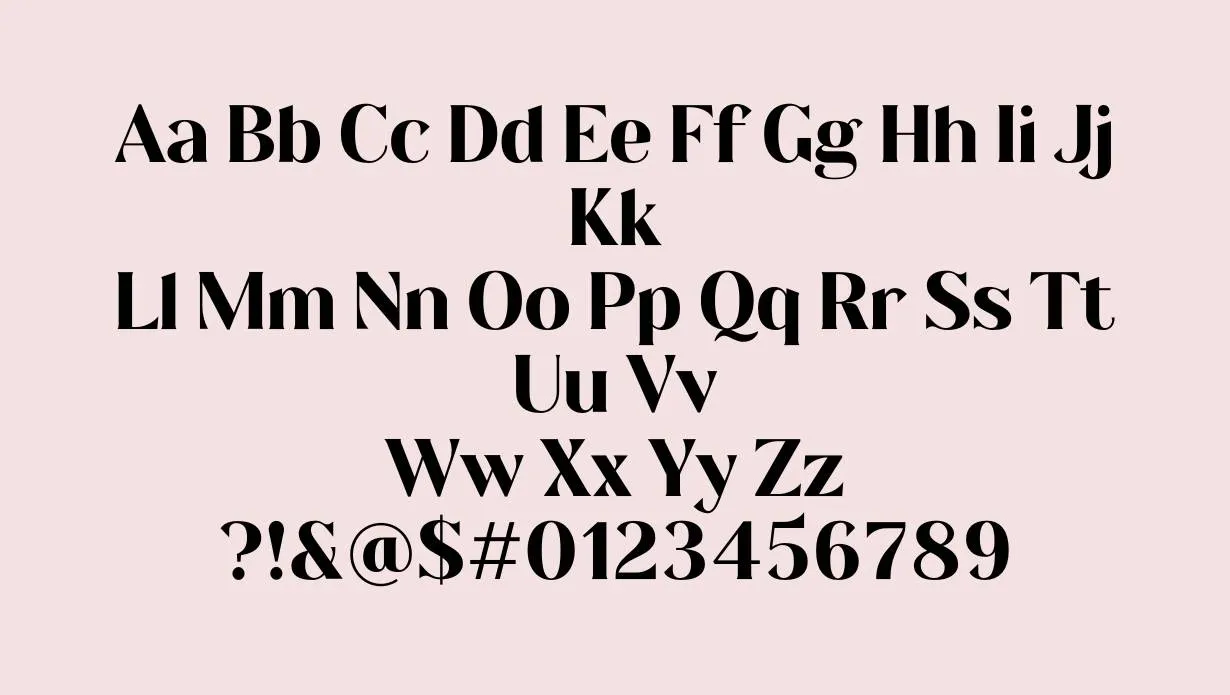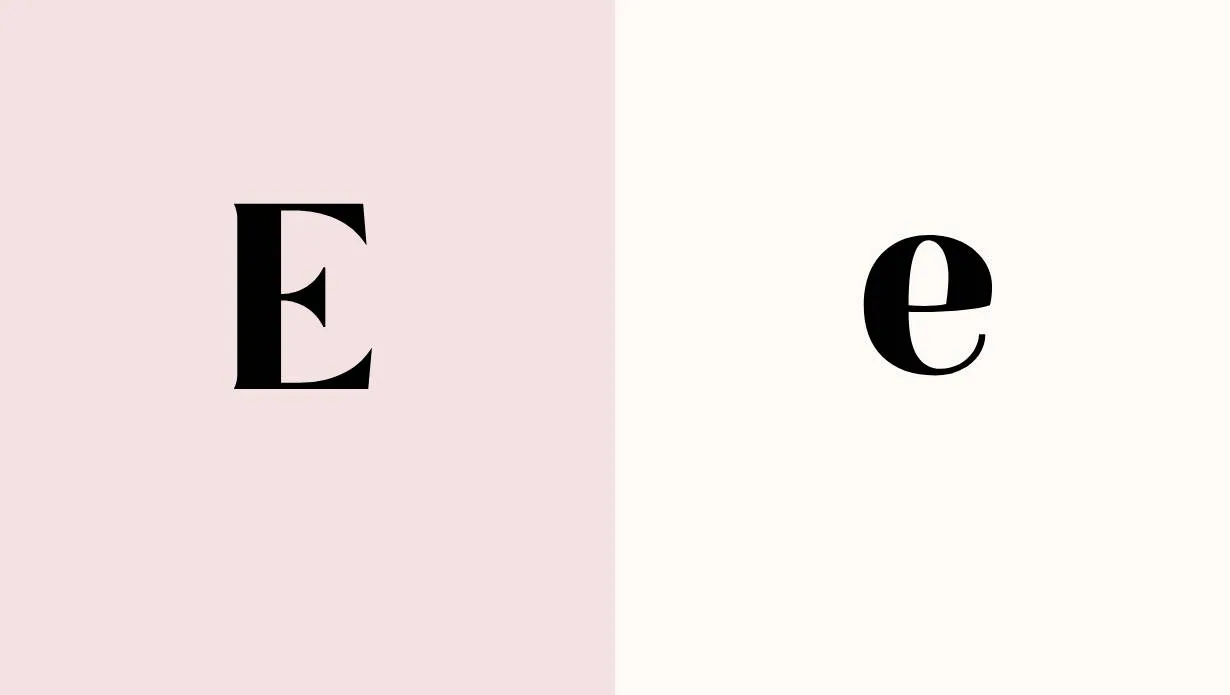
Elody font is a very attractive Serif font that was designed by Oleg Coada. It has amazing features like it contains 132 characters and 85 glyphs. You can make all commercial or personal projects by using this font.
Elody Font Family
| Name | Elody Font |
| Designer | Oleg Coada |